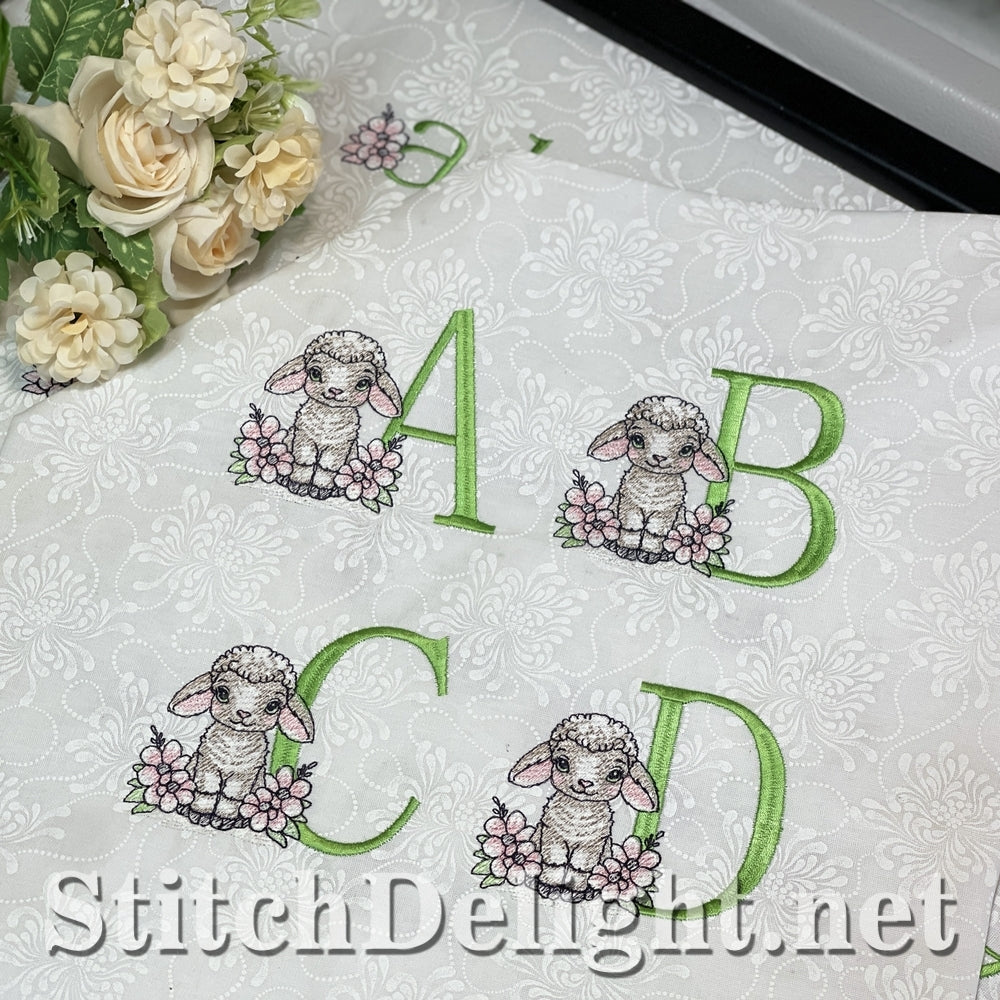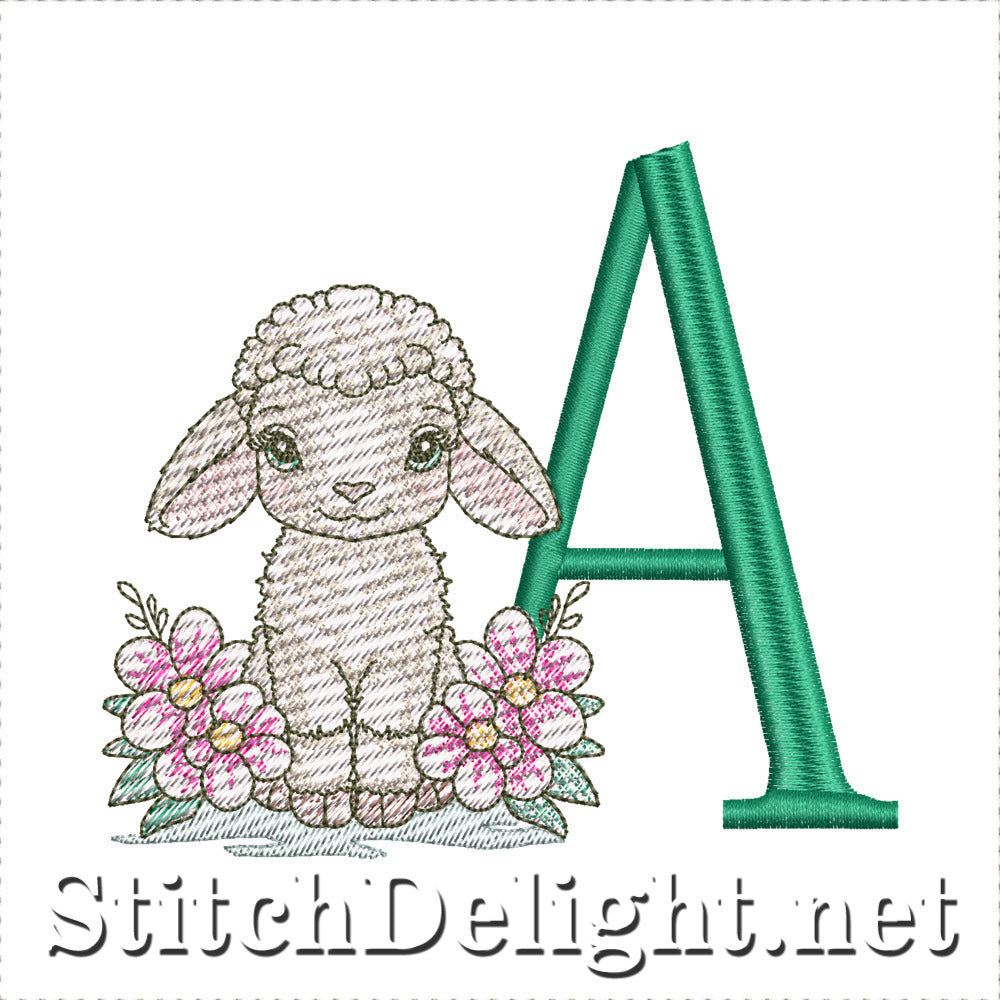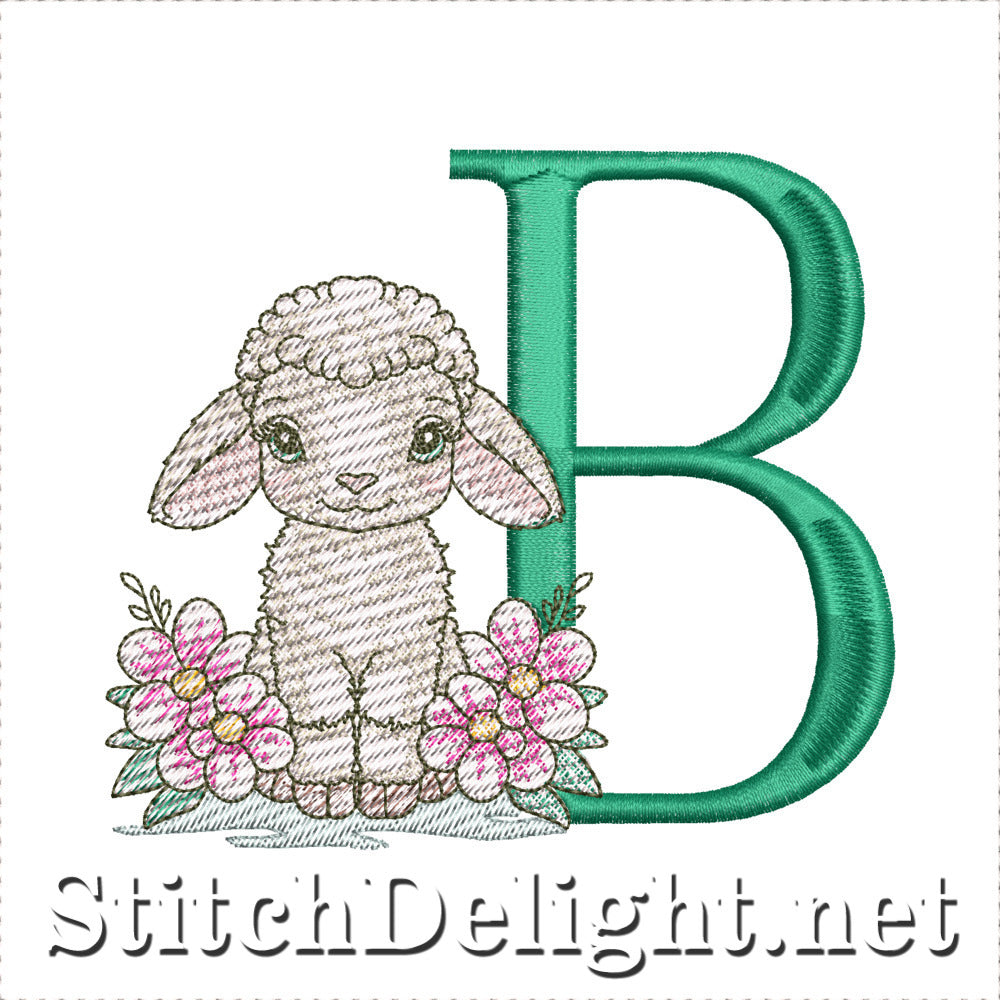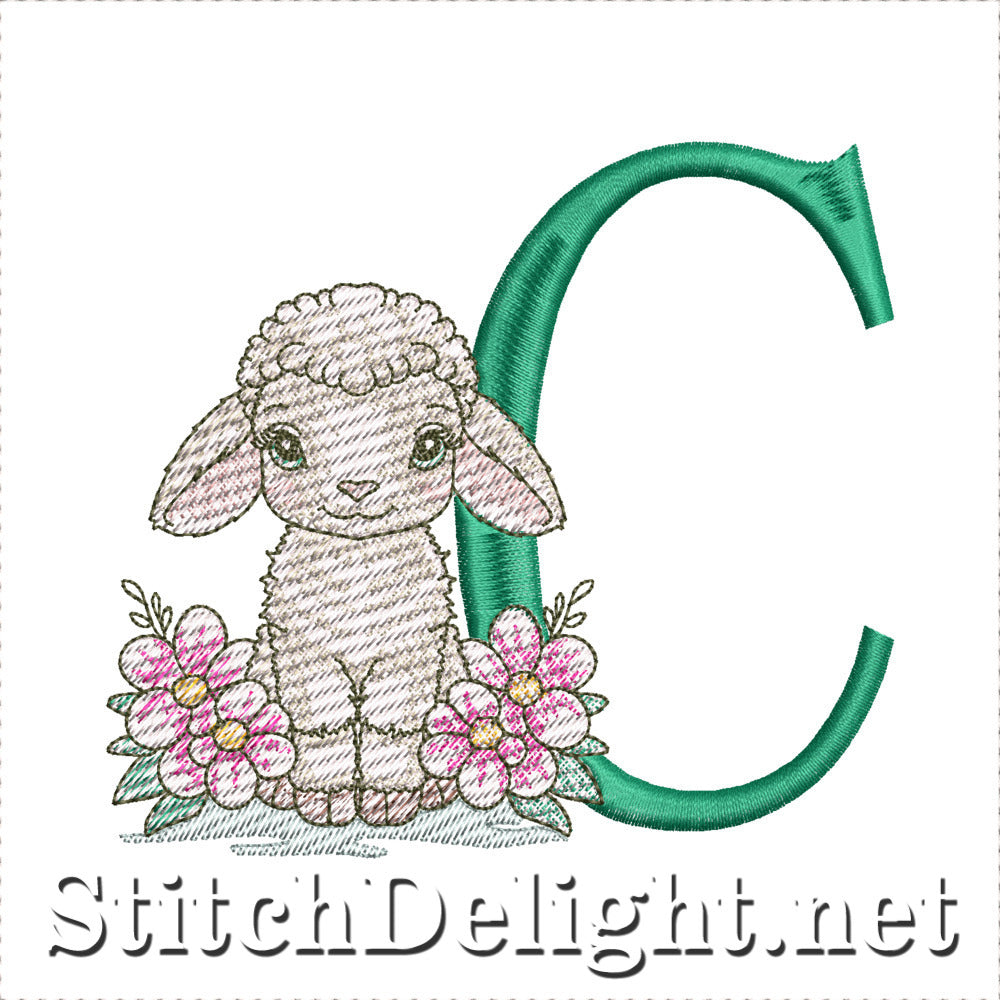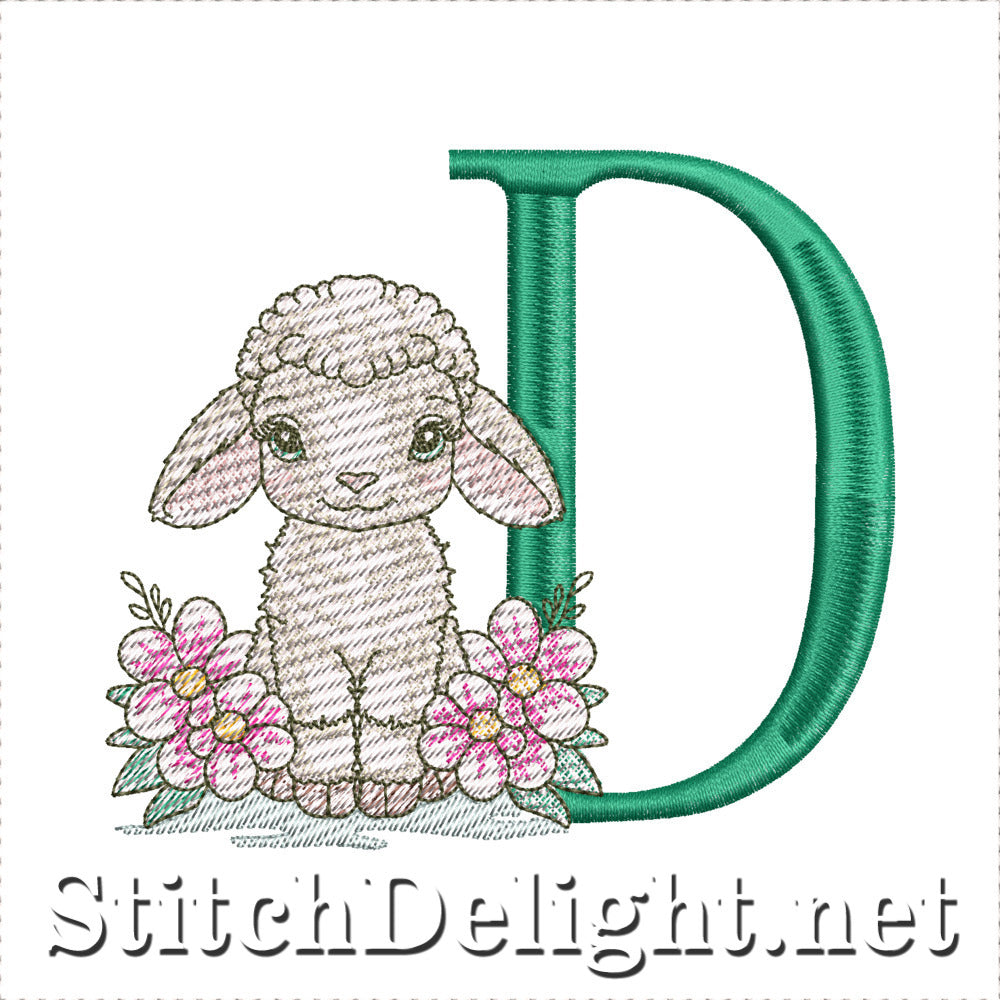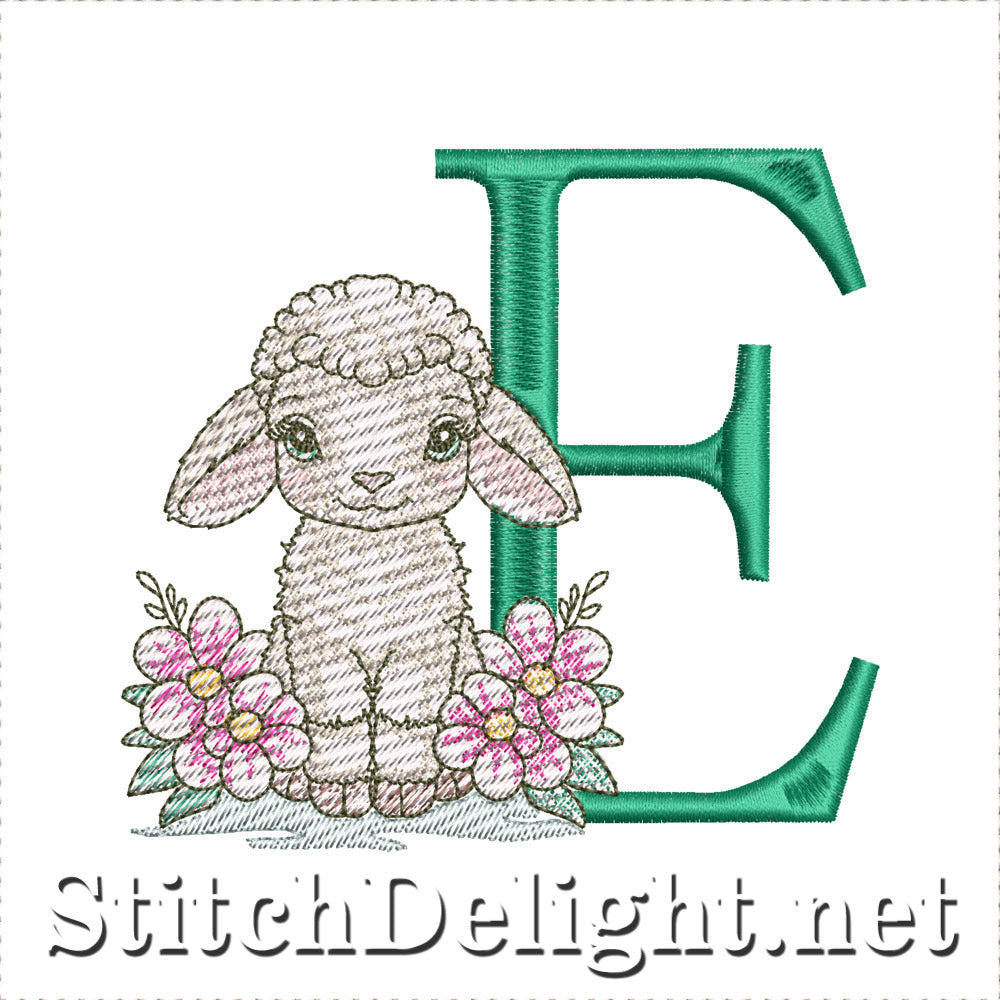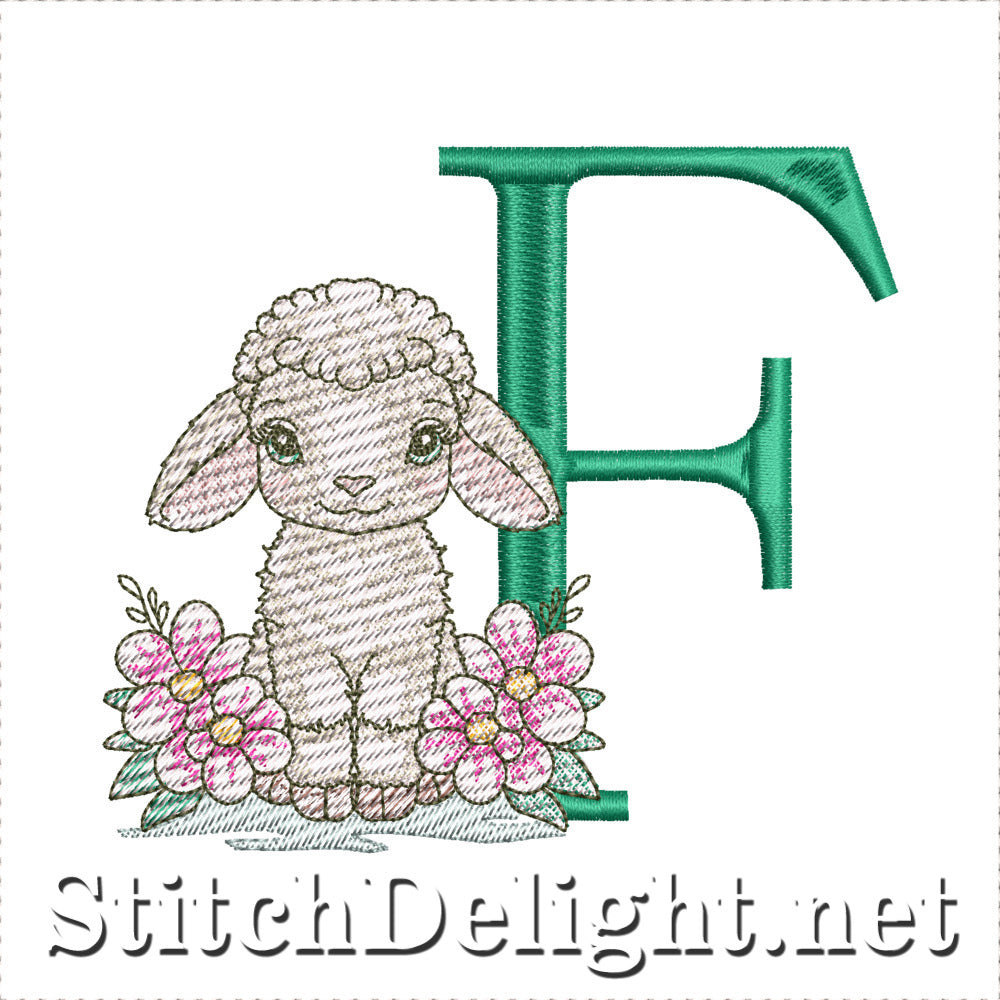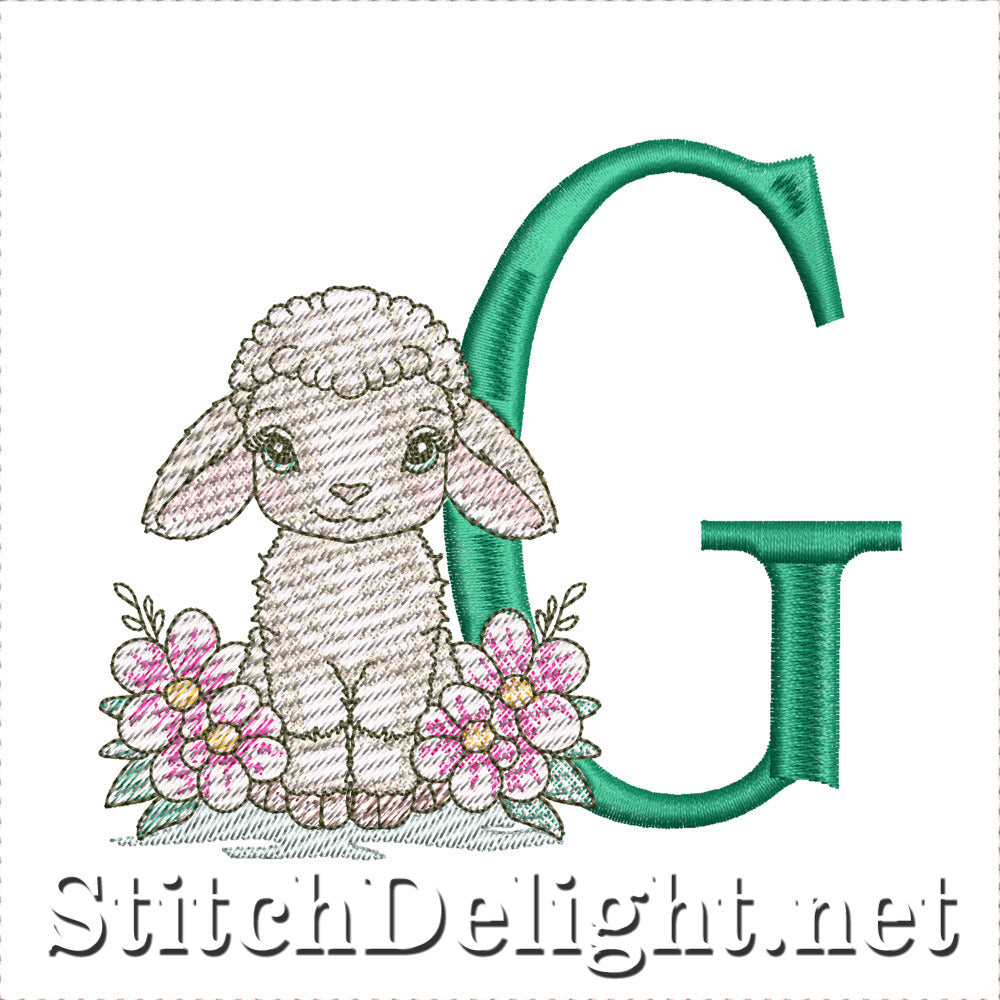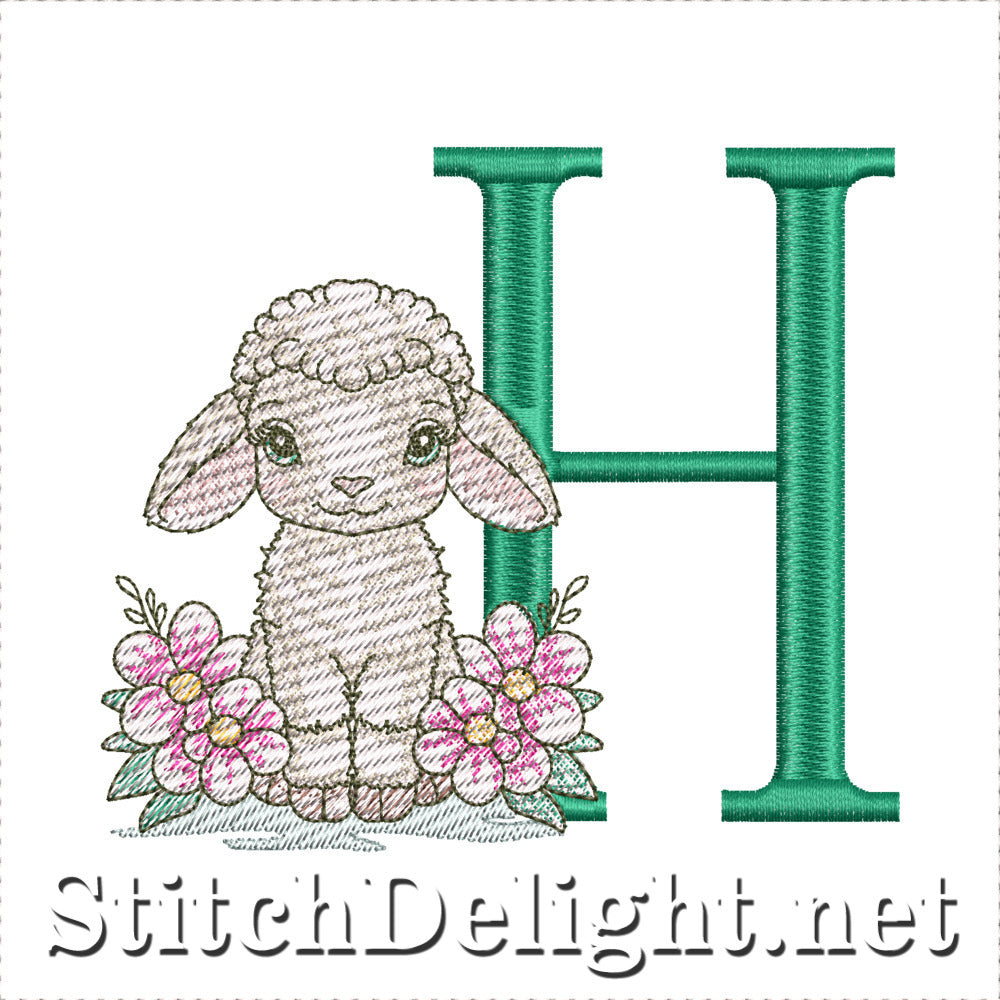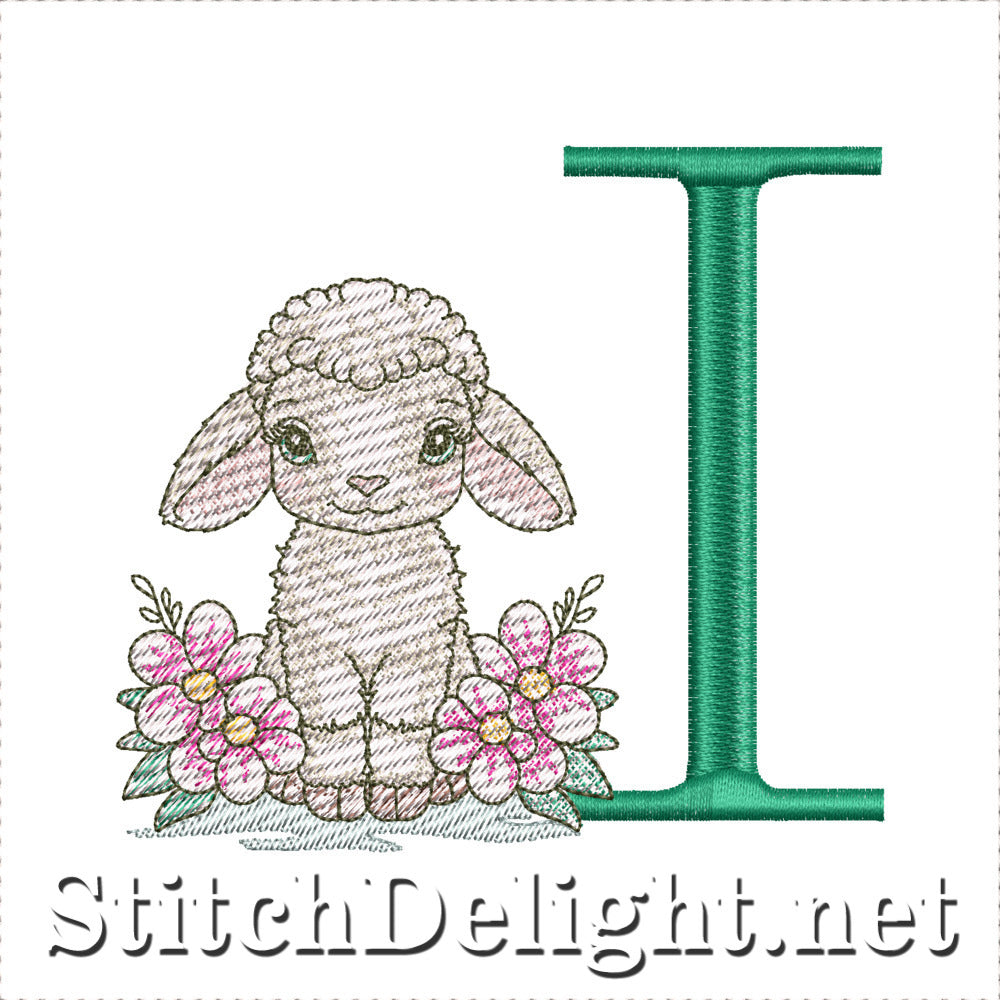
Meet Bella, the Baby Lamb who’s just discovered the magic of the alphabet! With every step she takes, a new letter blooms to life, wrapped in soft stitches and sprinkled with flowers. Gentle and playful, Bella loves to curl up beside each letter, making the alphabet feel as cozy as a meadow at springtime.
The Bella Baby captures her adventures in embroidery, with each letter standing proudly at an average height of 88 mm – the perfect size for personalizing quilts, nursery décor, clothing, and treasured keepsakes. Whether you’re stitching a name, a phrase, or a whole alphabet meadow, Bella adds a touch of sweetness and innocence to every project.